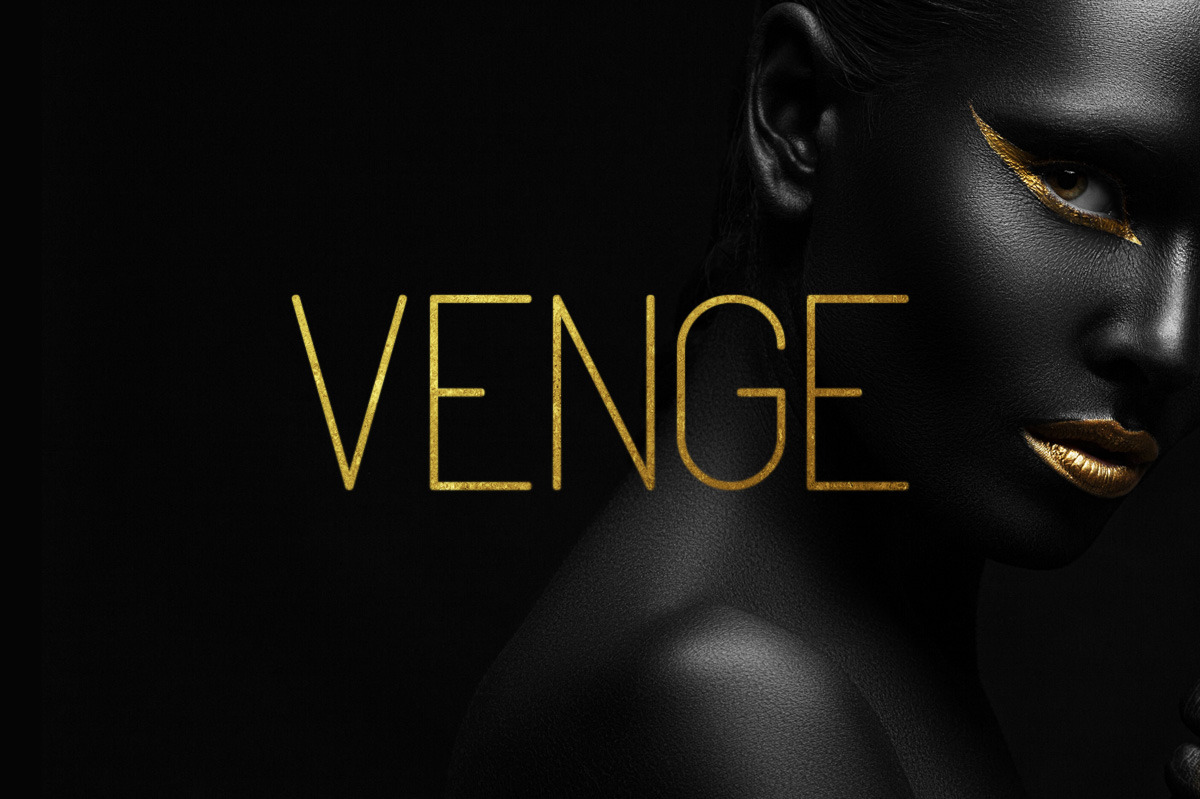
Venge Typeface
Venge is a thin, fashionable display typeface in 4 different styles. It includes uppercase English letters, some alternate letters which you can toggle with Caps Lock, numbers and punctuation.